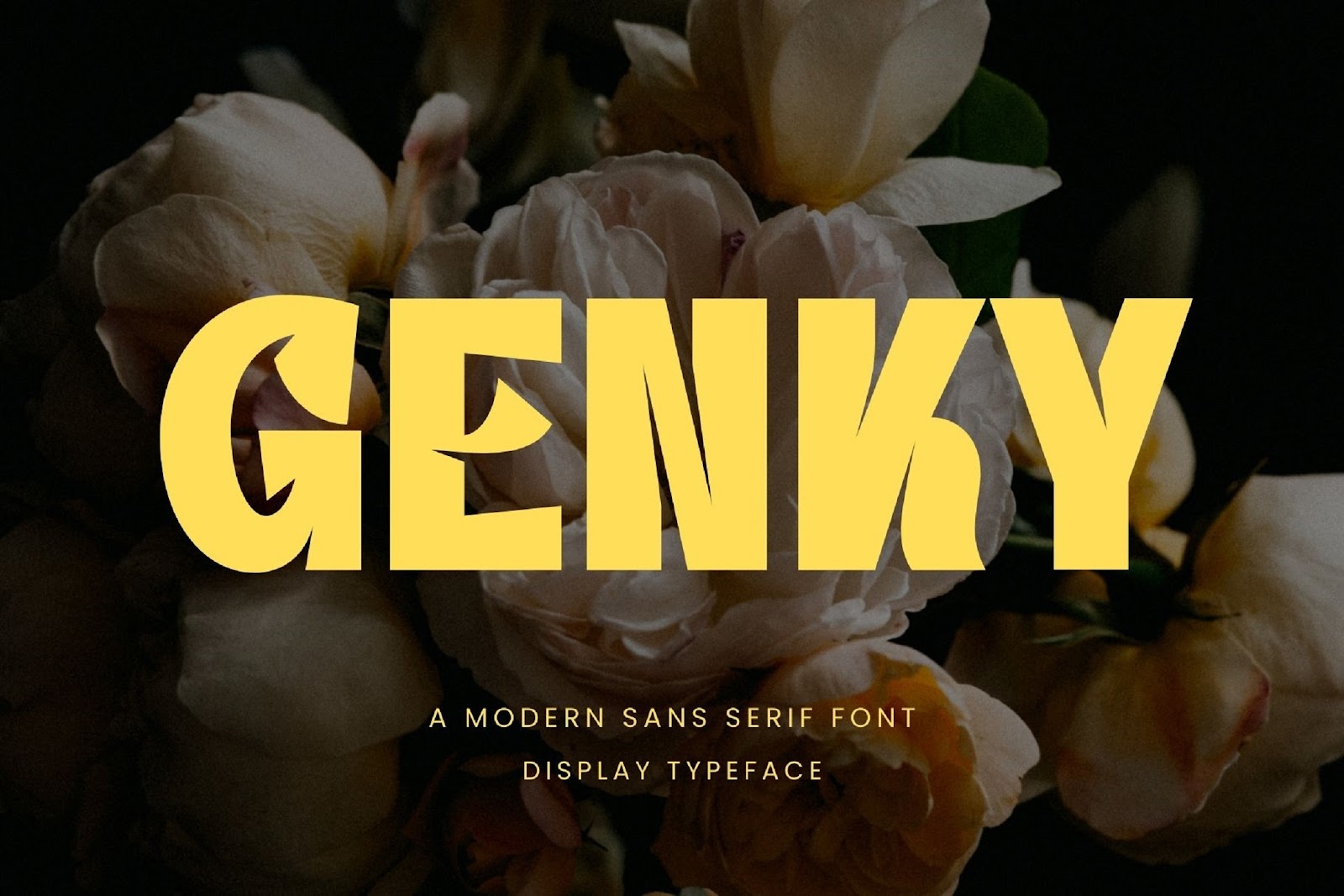
Genky Font is a contemporary typeface that harmonizes geometric balance with subtle artistic flair. Drawing from a variety of design influences, its well-calibrated proportions and delicate contrasts create a rhythm that feels both modern and timeless. Each character is sculpted with precision—subtle curves and refined detailing give the font a distinctive elegance while maintaining a clean, minimalist appeal.
Perfectly suited for a wide range of design applications, Genky Font excels in both digital and print environments. Whether you're crafting layouts for brochures, video graphics, branding, logos, or editorial designs, this typeface ensures clarity and visual interest. Its versatile structure also performs beautifully in magazine spreads, poster designs, social media templates, and user interfaces.
With its thoughtful construction and professional versatility, Genky Font offers a visually engaging yet understated solution for designers who value both form and function. It’s a reliable and stylish choice for elevating any creative project with sophistication and balance.